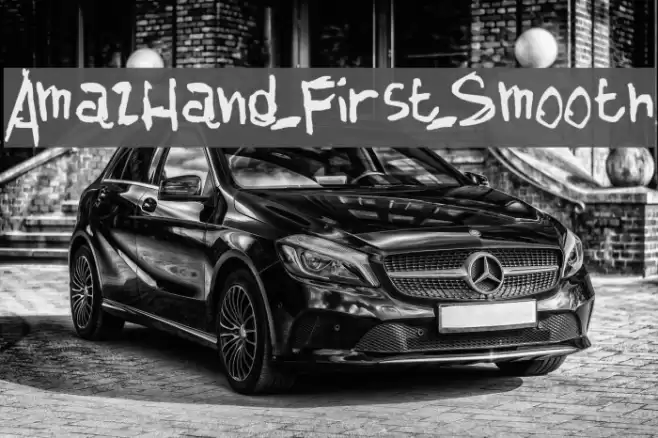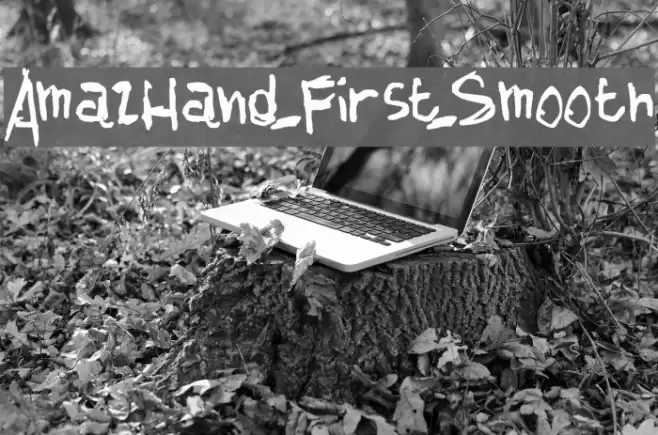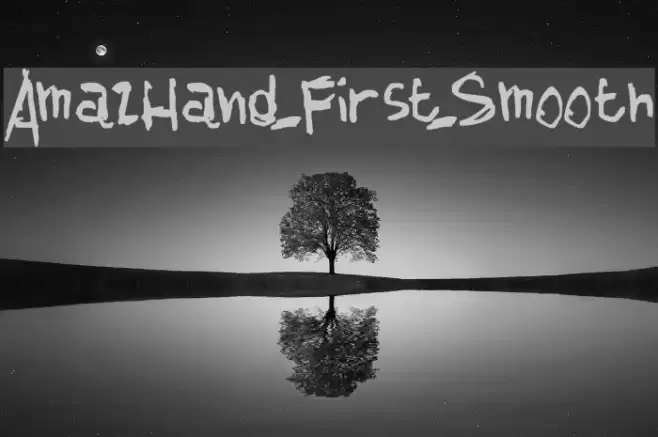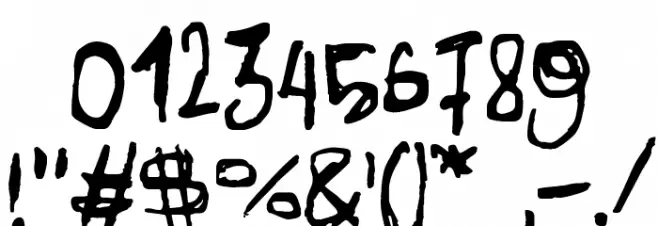
AmazHand_First_Smooth Font
AmazHand_First_Smooth Description
This font features a bold, expressive style reminiscent of hand-drawn lettering. The characters are uneven and dynamic, with a playful and artistic flair. The uppercase and lowercase letters maintain a consistent thickness, giving the font a cohesive look despite its irregularities. The numbers and special characters follow the same energetic style, making them stand out. This font is ideal for projects that require a personal touch or a creative, informal vibe.
A bold, hand-drawn font with an expressive and artistic style from Handwritten fonts.
- Proposed Projects: Perfect for creative projects such as posters, invitations, and artistic branding where a personal touch is desired.